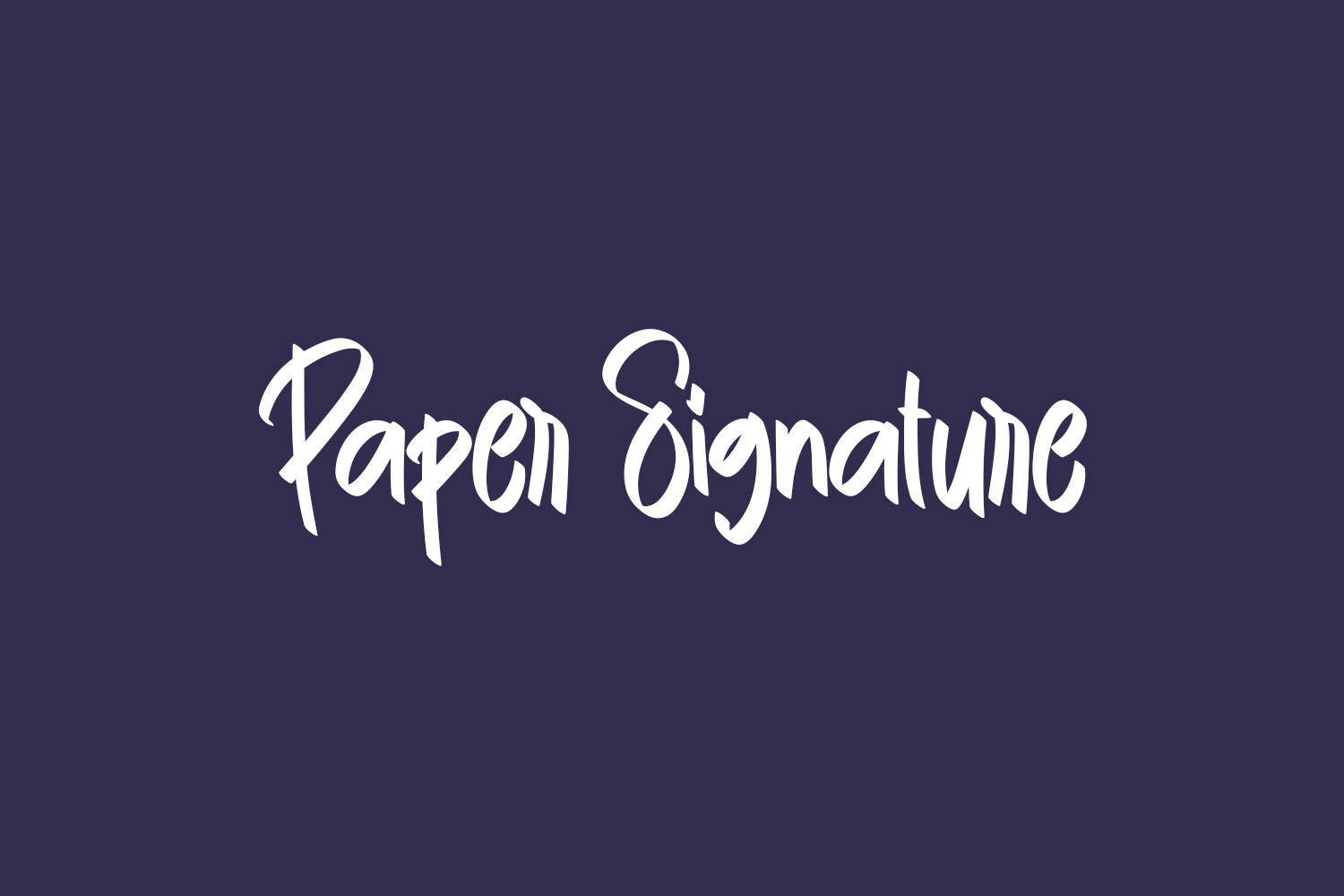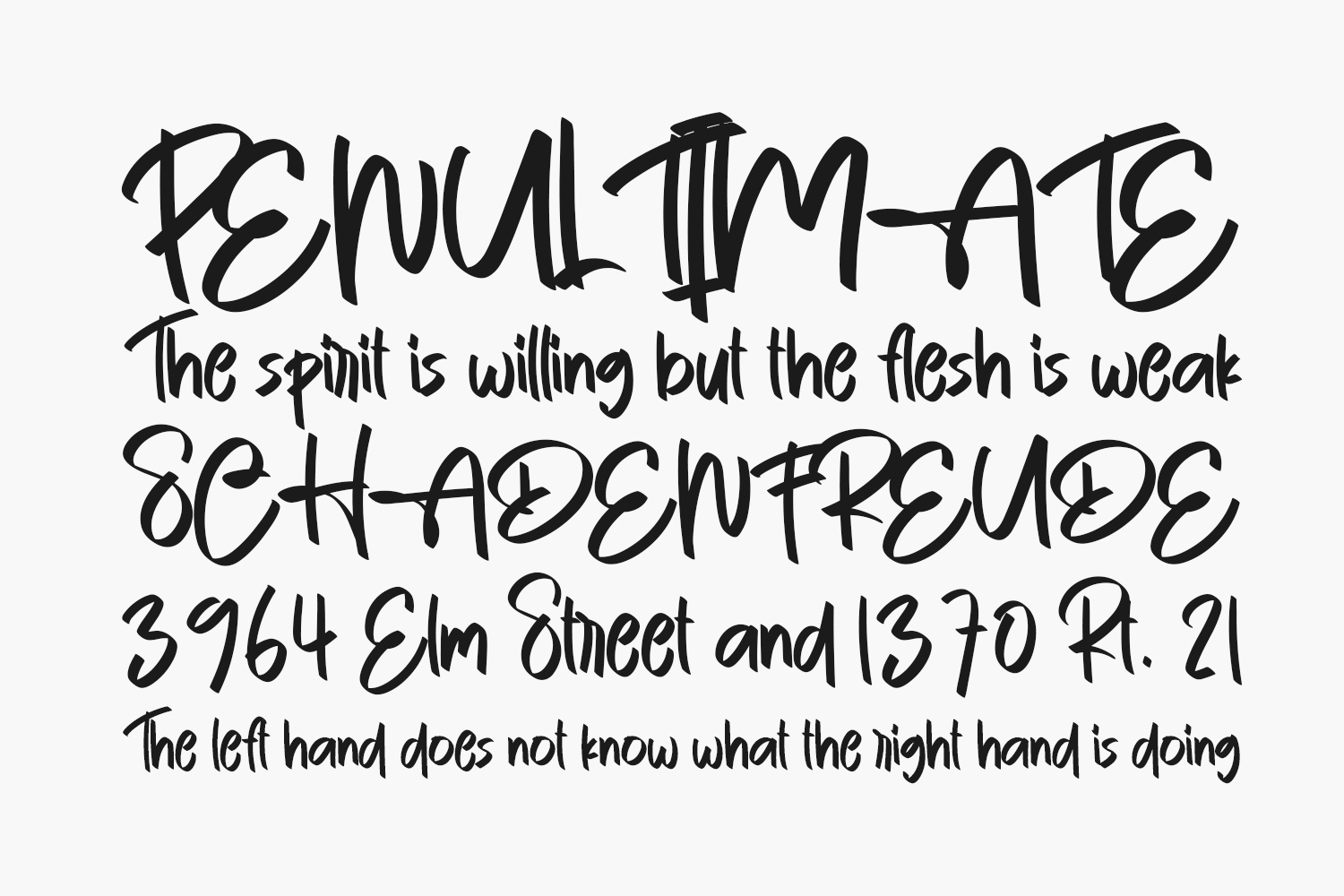
Paper Signature Free Font is a cute, quirky, and friendly handwritten font. Featuring characters that dance along the baseline, this font will add a luxury spark to any design project that you wish to create. Paper Signature Free Font was designed by Belina Studio and is free for personal use only. Please purchase the full version for commercial use.